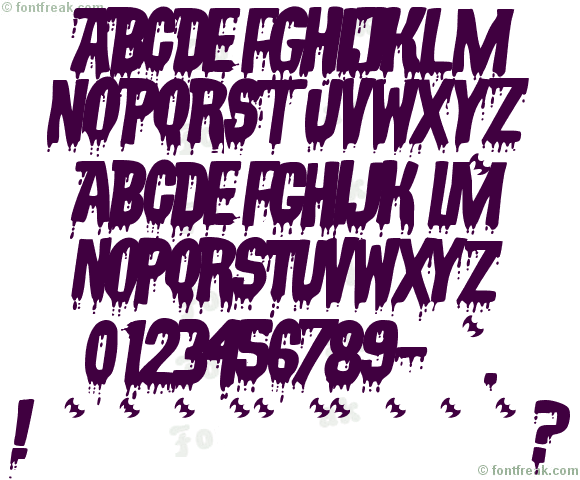
VampyrishABC-Oblique
VampyrishABC-Oblique is a striking display font designed by Manfred Klein, categorized as a decorative typeface. This unique font captures attention with its bold, dripping strokes that evoke a sense of mystery and intrigue. The oblique style adds a dynamic quality, enhancing its visual impact. With a medium stroke weight and contrasting elements, VampyrishABC-Oblique showcases uneven spacing that contributes to its dramatic appearance. The decorative elements, reminiscent of horror or gothic themes, make it particularly suitable for projects with an edgy or playful aesthetic.
This font excels in specific use cases, including creating eye-catching movie posters, where its dramatic flair can effectively capture the essence of a thriller or horror film. It also works wonderfully for Halloween-themed invitations, bringing a fun yet spooky vibe to celebrations. Additionally, restaurant menus that aim for a quirky, unconventional atmosphere can benefit from the font's unique character. Graphic designers looking to create logos or branding for niche businesses that embrace a bold identity will find this font to be a perfect fit. Finally, content creators in the gaming or comic industries can leverage VampyrishABC-Oblique to add an engaging visual element to their work.
Target audiences for this font include graphic designers, small business owners, and content creators who seek to make a memorable impression with their projects. Whether it's for promotional materials or artistic endeavors, the VampyrishABC-Oblique font free download offers versatility and charm.
What sets this font apart is its distinctive style that breaks away from conventional designs. Its ability to convey emotion and narrative through typography makes it an exceptional choice for those wishing to stand out in a crowded market. VampyrishABC-Oblique promises to elevate any creative project with its unique personality.